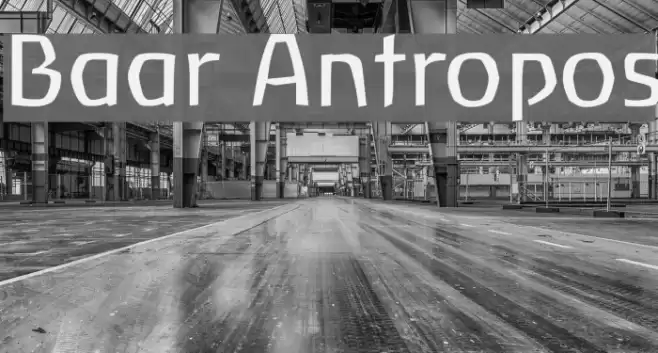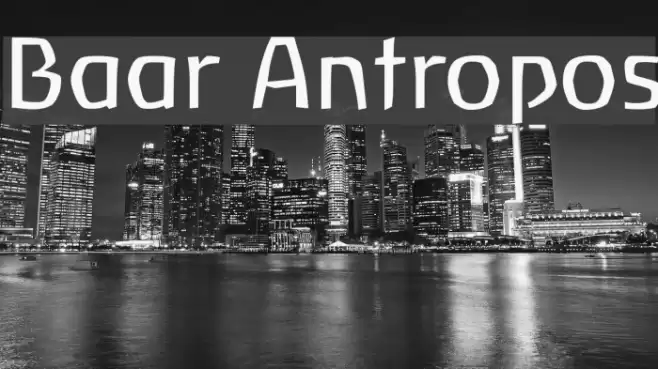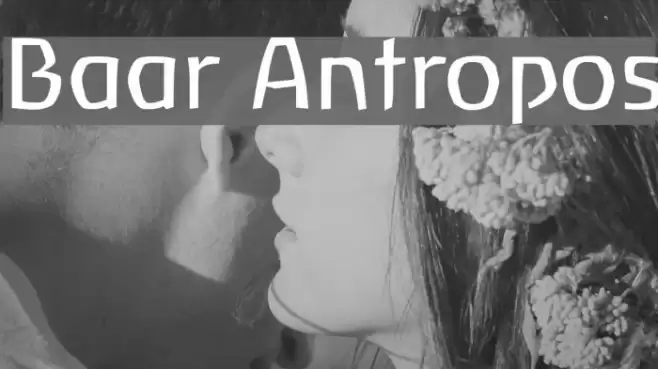
Baar Antropos Font
Baar Antropos Description
This font features a unique blend of modern and slightly retro aesthetics, characterized by its angular and slightly irregular letterforms. The uppercase letters are bold and assertive, with a distinct geometric influence that gives them a contemporary feel. The lowercase letters maintain a consistent style, offering a smooth transition between characters. The numerals are clear and legible, designed to complement the overall style of the font. Special characters are crafted with attention to detail, ensuring they integrate seamlessly with the rest of the typeface. This font's distinctive style makes it suitable for a variety of creative projects.
A modern, geometric font with angular, bold letterforms from Basic fonts.
- Proposed Projects: Ideal for branding, posters, headlines, and digital media projects that require a modern and distinctive look.